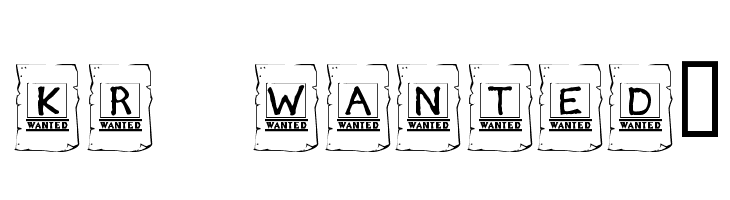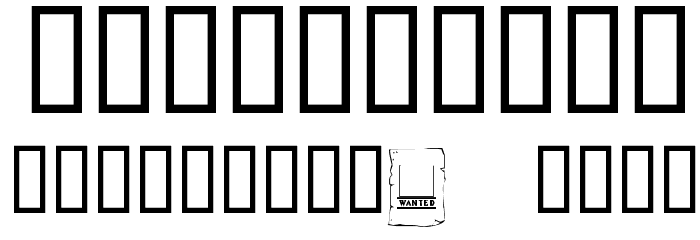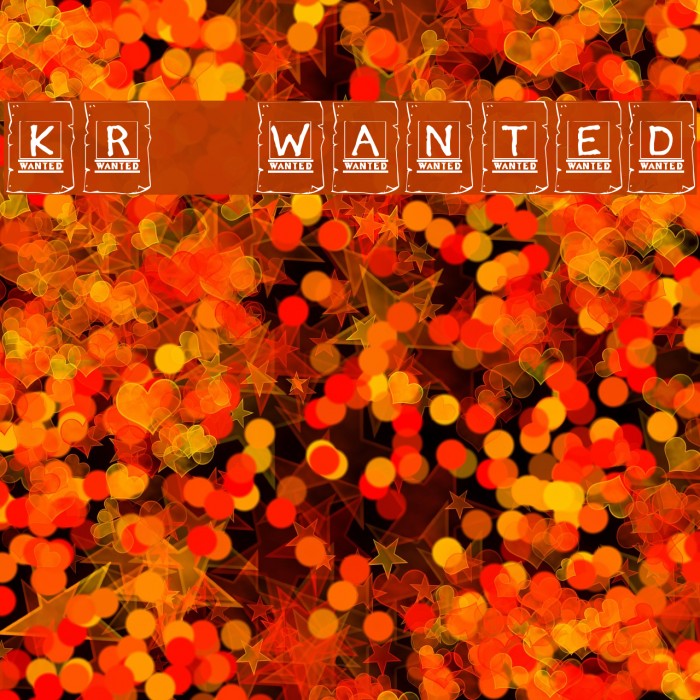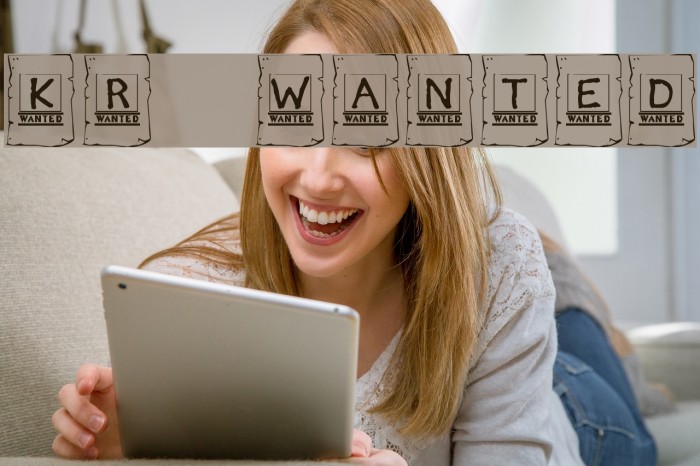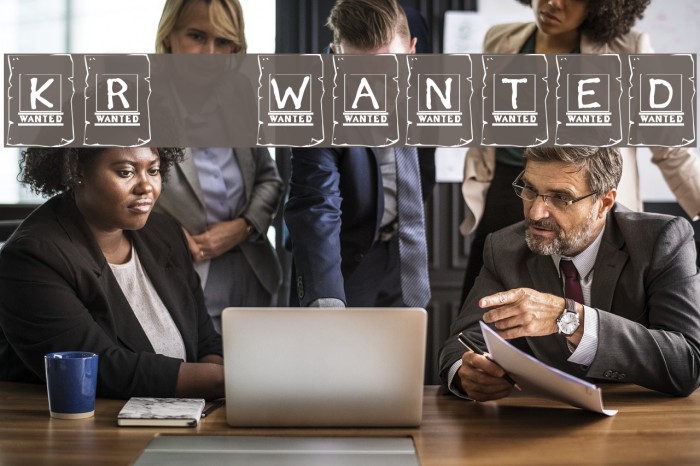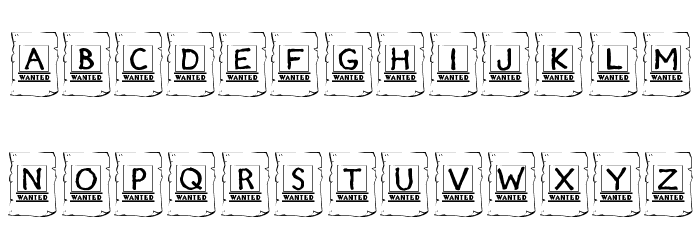
KR Wanted!
This font features a bold, decorative style reminiscent of old Western wanted posters. Each character is enclosed in a torn paper effect, adding a rugged and vintage feel. The letters are uppercase and have a strong, impactful presence, making them ideal for attention-grabbing designs. The font's unique style is characterized by its thick strokes and high contrast, giving it a dramatic and eye-catching appearance. The overall design is both nostalgic and playful, perfect for projects that require a touch of the Wild West or a vintage theme.
A bold, decorative font with a vintage Western wanted poster style.
- Proposed Projects: Ideal for Western-themed posters, event flyers, themed party invitations, and any design needing a vintage or rugged aesthetic.
- Contrast: High
- Overall Style: Vintage
- Use Case: Headlines, Posters, Logos